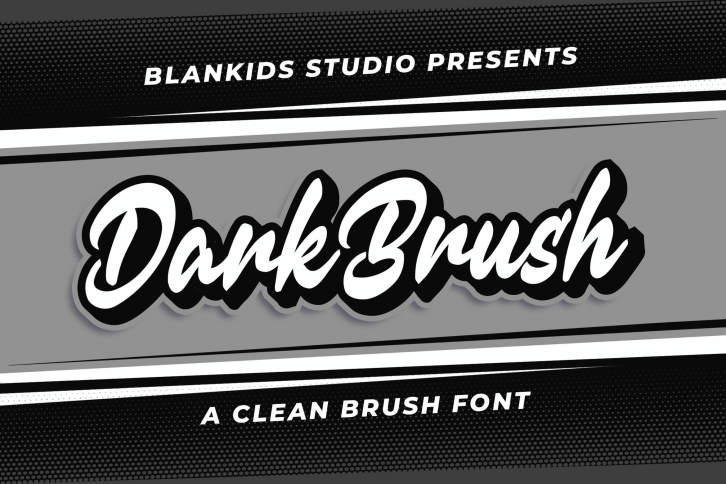
Dark brush a Clean Brush is a trendy and unique font with an authentic style. It was designed by Blankids and it's a great choice for creative people who need such a font. It was released on August 23, 2022 and the file size is 17.29 MB. Dark brush a Clean Brush will add an organic vibe to any design idea!